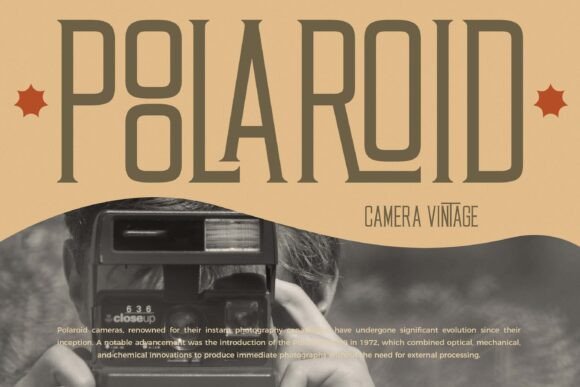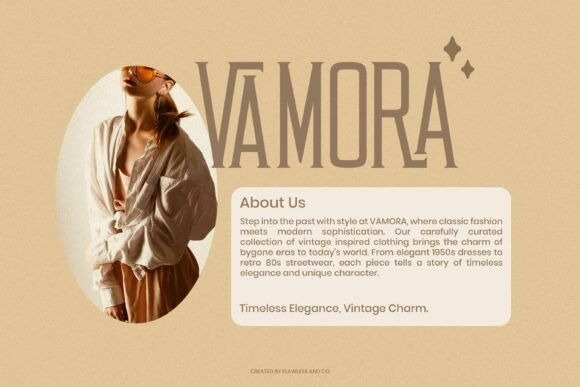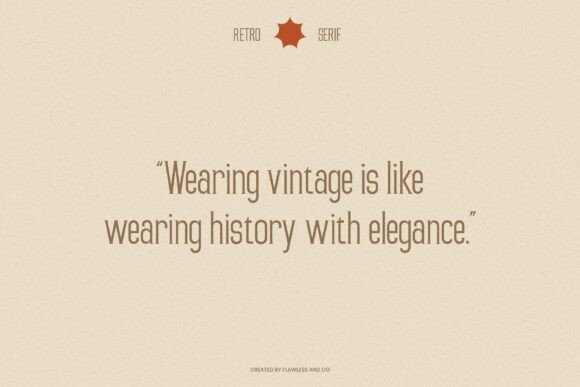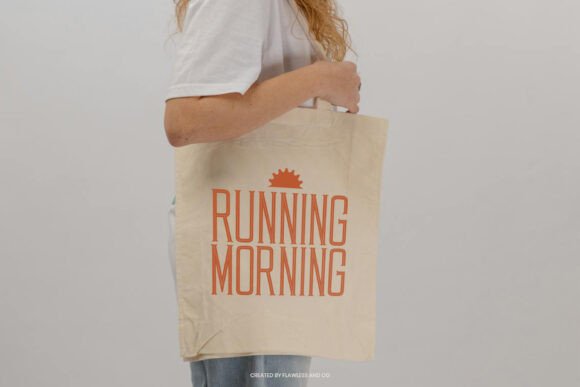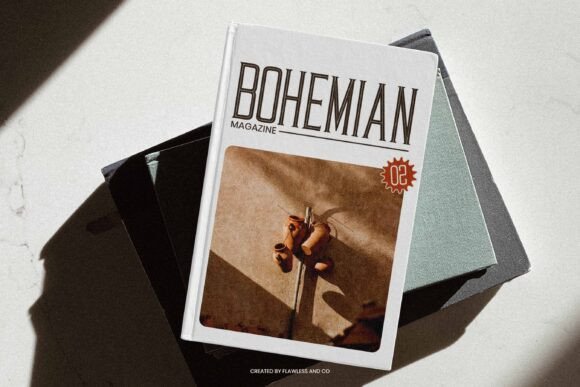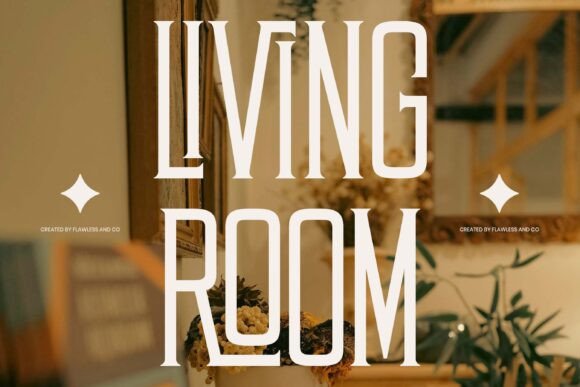
Introduction to Ravente Font
Have you ever been working on a creative project, pouring your heart and soul into the design, and then, suddenly, the perfect font pops into your mind? For designers, that ‘aha’ moment is like finding a long-lost treasure, and it can make all the difference in elevating our work from good to great.
That’s exactly what the Ravente Font does – it adds that special something to your designs, making them stand out from the crowd. This retro serif font combines vintage charm with a modern twist, featuring bold serifs, smooth curves, and balanced letterforms that bring both elegance and character.
Key Features of Ravente Font
- Features a unique, modern design with a subtle flair, perfect for adding a touch of sophistication to any project.
- Includes a large character set, making it suitable for a wide range of creative projects, from logos to typography.
Honest Review: Ravente Font
I recently came across the Ravente Font, and I was excited to dive in and see what it had to offer. As a designer, I’m always on the lookout for new and interesting design resources to elevate my creative projects.
One of the standout features of the Ravente Font is its high quality and versatility. It’s a great option for any project that requires a modern and sophisticated feel. The font is also available for free download, which is a definite plus in my book.
Some of the things that work well with the Ravente Font include:
- ✨ Highly customizable: The font has a wide range of styles and weights, making it easy to find the perfect fit for your project.
- ✨ Transparent background: This feature makes it easy to use the font on top of any background image or color.
However, I did encounter a few limitations with the Ravente Font:
- ⚠️ Not ideal for small text: While the font looks great in large sizes, it can be difficult to read when used in small text sizes.
Overall, I would say that the Ravente Font is a solid option for designers who are looking for a high-quality, free design resource. While it may have a few limitations, it’s definitely worth checking out for any creative project that requires a modern and sophisticated feel.
The Ravente Font is commonly used in various design projects, such as logo design, branding, and digital marketing materials. Its unique style and high-quality design make it a popular choice among designers.
Tips for Getting the Most Out of Ravente Font
To get the most out of the Ravente Font, experiment with different font sizes and combinations to achieve the desired effect. Also, use the font in conjunction with other design elements to create a visually appealing design.